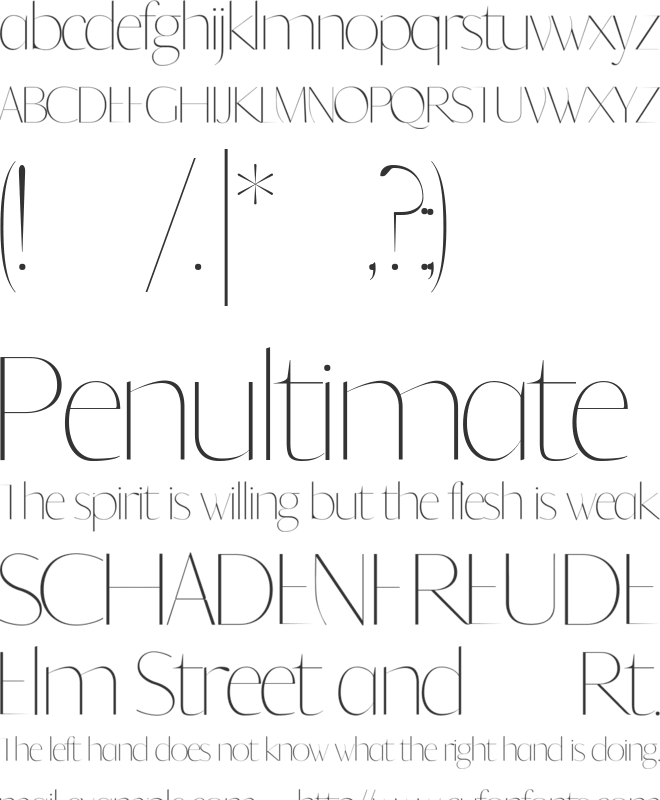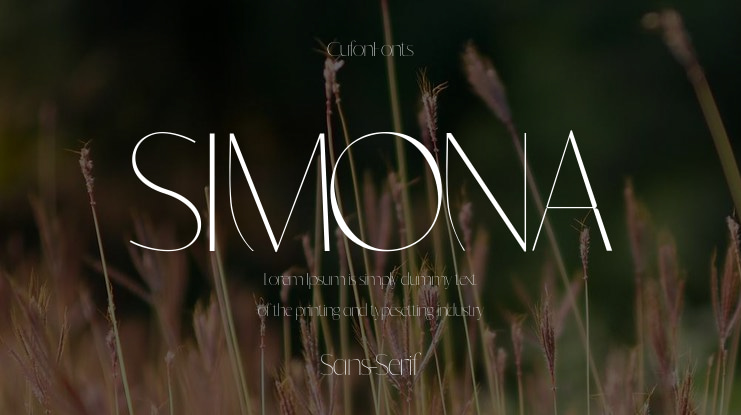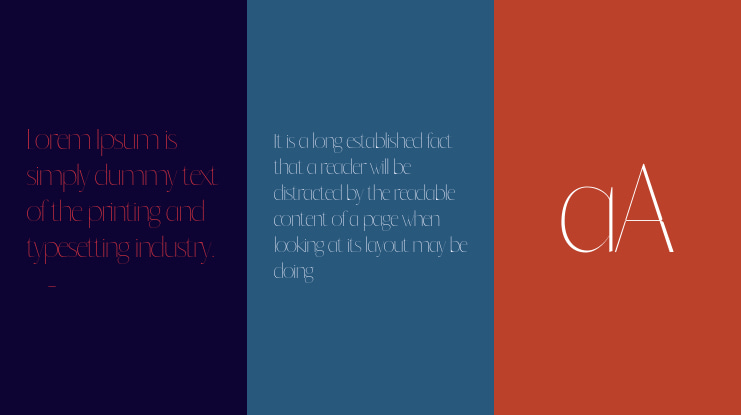
SIMONA Font
🎨 Font Name: SIMONA by Minimalist Art Studio
🎨 Font Description: SIMONA is a delicate sans serif with 570+ glyphs and multilingual support—ideal for minimalist branding, editorial design, and elegant packaging.
✔ Complete Latin set + multilingual diacritics
✔ Alternates, stylistic sets & ligatures
✔ Numbers, small caps, and extended punctuation
✔ Bonus italics and family styles